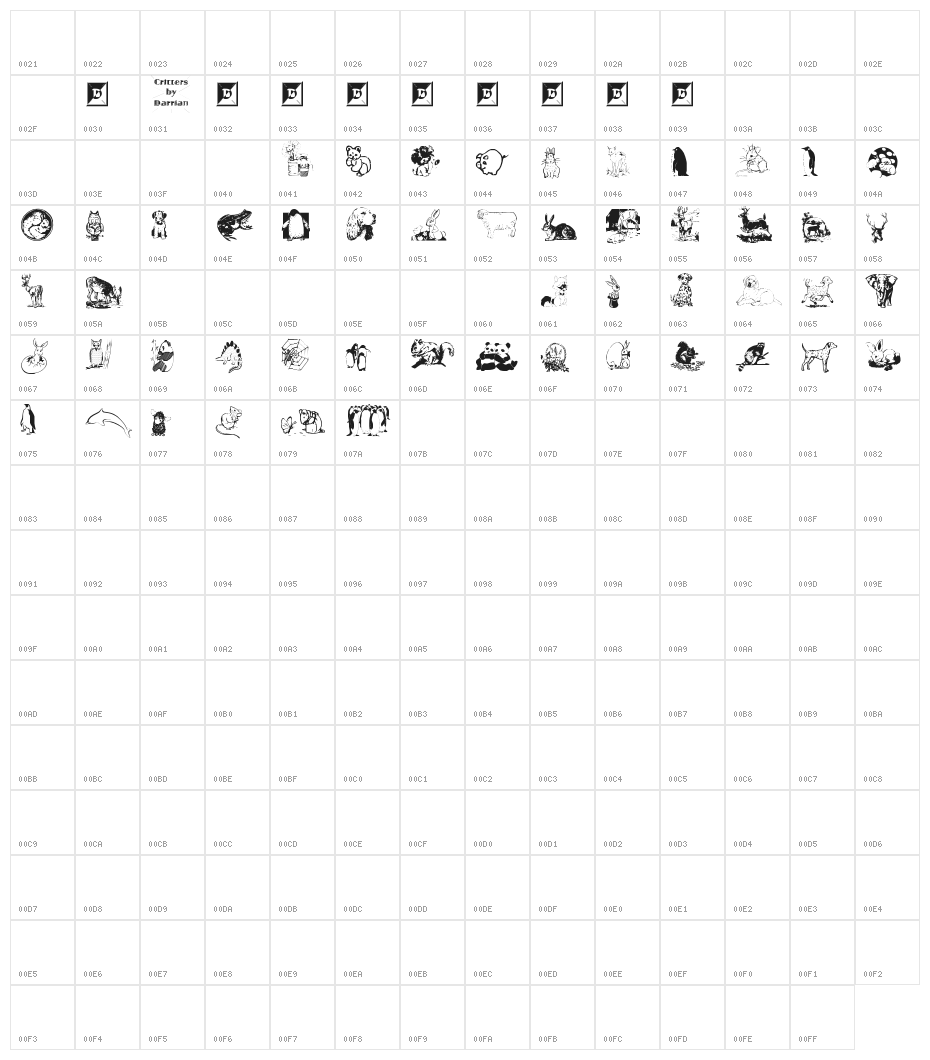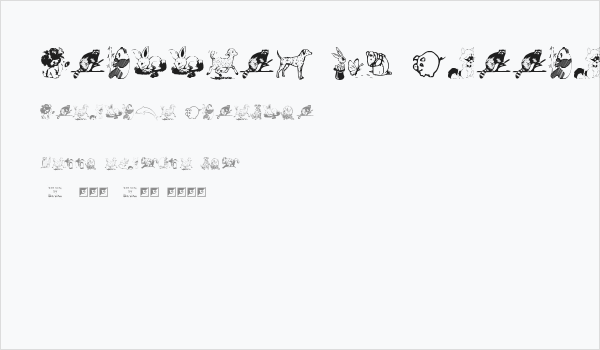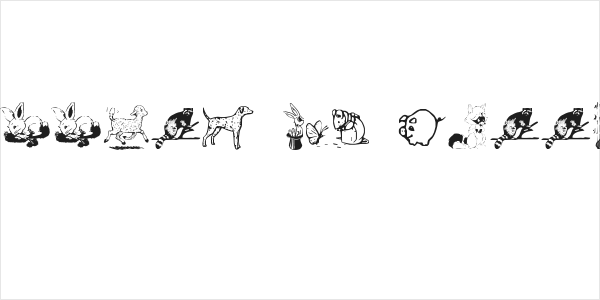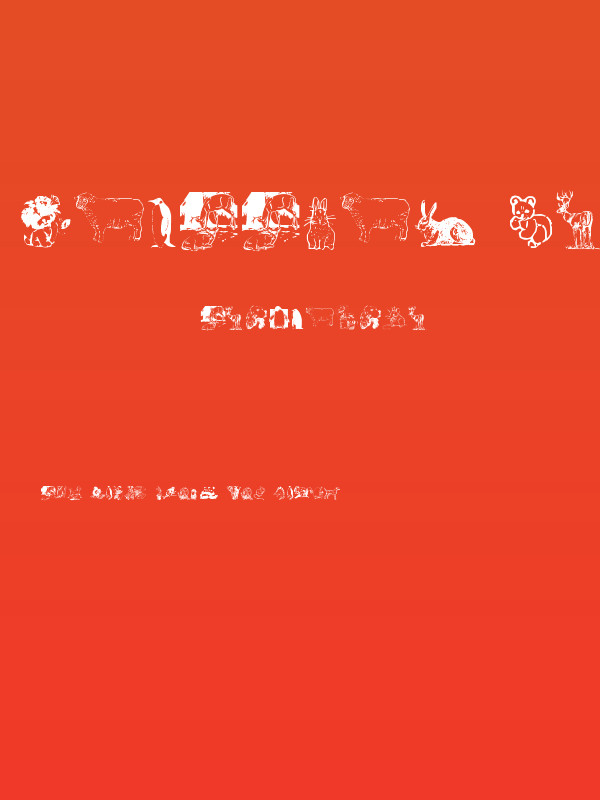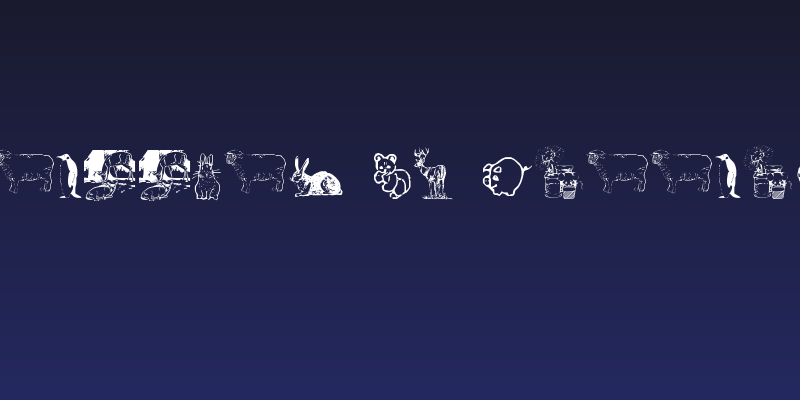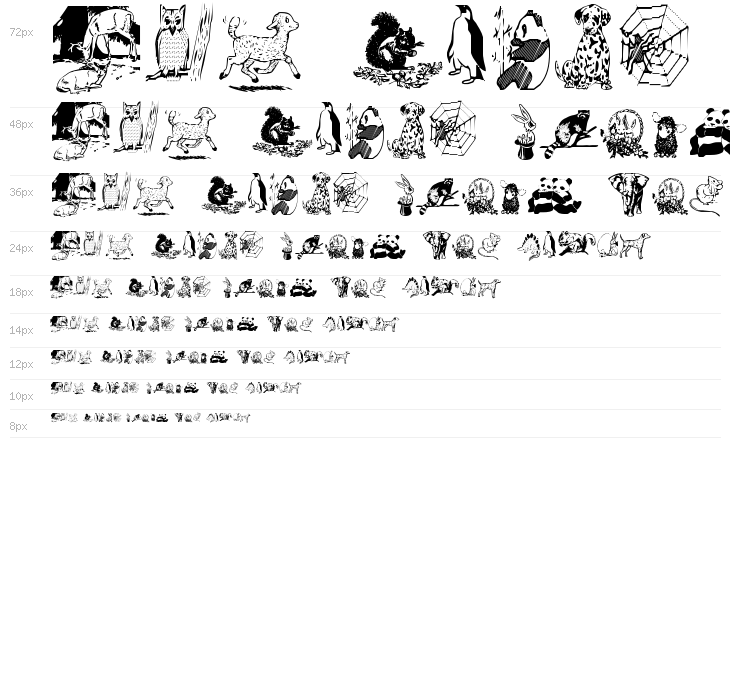
Critters by Darrian Font
Critters by Darrian Description
A decorative dingbat font featuring a variety of hand-drawn animal illustrations, each glyph representing a different critter or animal scene. The style is playful and whimsical, with detailed linework and a cartoonish approach. Includes some unique symbols and a stylized 'D' in a geometric frame.
| Overall Style | Decorative, Playful, Whimsical |
| Use Case | Decorative elements, Themed illustrations, Borders, Icons |
| Proposed Projects | Children's books, educational materials, animal-themed party invitations, scrapbooking, decorative borders, playful branding. |